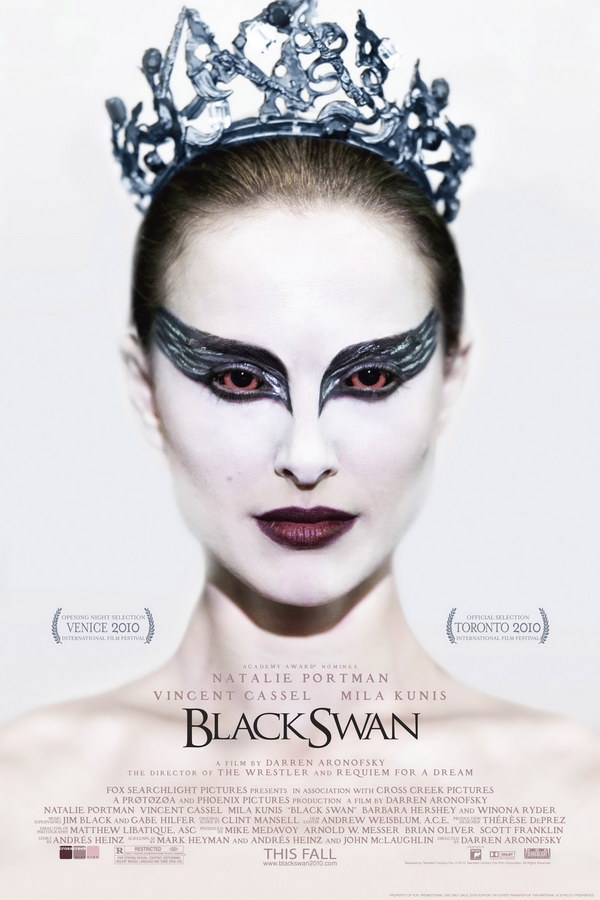
Black Swan Font
Fonts in UseBlack Swan is a 2010 psychological thriller directed by Darren Aronofsky, starring Natalie Portman as a ballerina who descends into madness while preparing for a production of Swan Lake.
The font featured on the movie poster title resembles Trajan Regular, a classic font designed by Carol Twombly in 1989. This typeface draws inspiration from the inscription found at the bottom of Trajan’s Column.